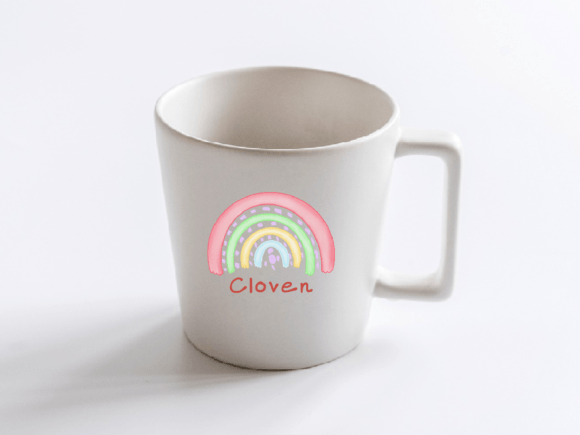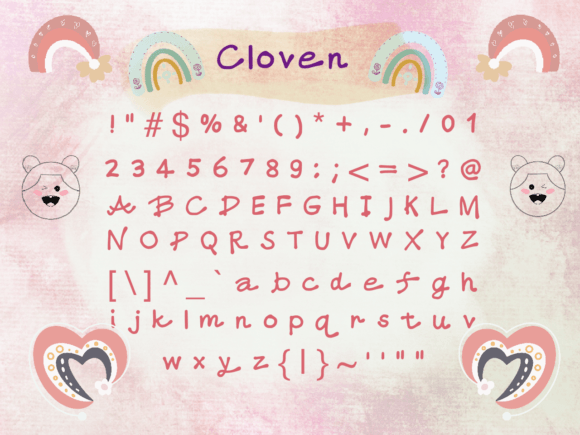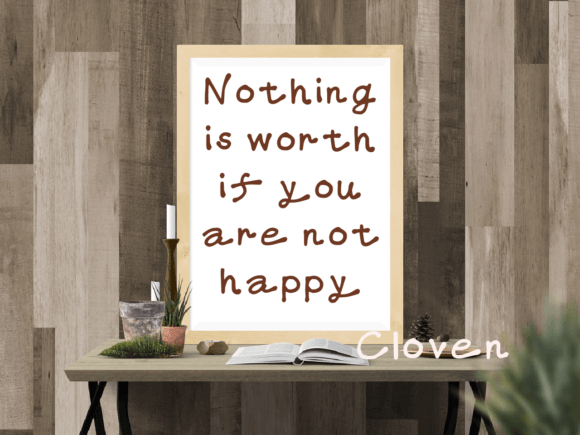
Cloven Font
About Cloven Font
“Cloven” is not just a font; it’s a fun and friendly handwritten typeface designed to turn any design idea into a true standout. Infused with a sense of playfulness, this font becomes a source of inspiration with its unique charm, allowing you to create designs that are not only lovely but also distinctly delightful.
The fun and friendly handwritten style of “Cloven” is a standout feature. The characters are crafted with a playful and approachable quality, making this font well-suited for a variety of creative applications. Whether used in branding, social media posts, or any other design element, “Cloven” adds a touch of lightheartedness to your text.
The unique charm of “Cloven” sets it apart, making it a font that stands out in the crowd. This charm becomes a creative spark, encouraging you to explore different design possibilities and experiment with its playful qualities. It’s a font that inspires creativity.
Creating lovely designs with “Cloven” is an enjoyable process. The font’s unique charm serves as a catalyst for creative ideas, making it an excellent choice for designers who want to infuse their projects with a touch of delight. Use it to bring a sense of joy and playfulness to your designs.
In summary, “Cloven” is more than just a font; it’s a fun and friendly handwritten typeface that adds a unique charm to your designs. Use it to turn your design ideas into true standouts, and let its playful and inviting qualities inspire you to create lovely and delightful designs.